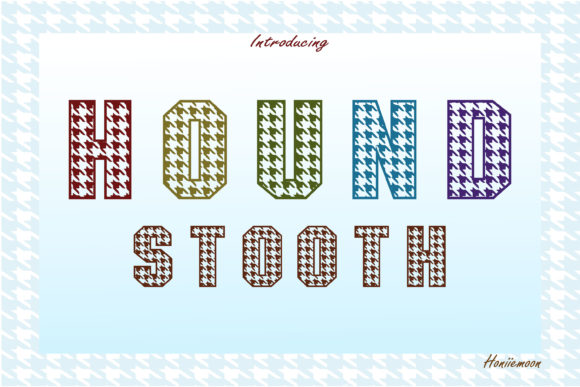
Feast your eyes on Hound Stooth, the decorative font that breathes life into your designs. This font is anything but ordinary, exuding a playful personality that will transform your creative visions into captivating realities. Whether you're a seasoned designer or just starting, Hound Stooth is your gateway to unlocking a world of artistic possibilities.
Step into a realm where creativity knows no bounds, where each letter dances across the screen with a unique charm. Hound Stooth's playful curves and energetic lines create an eye-catching spectacle that demands attention. It's the perfect font for adding a touch of whimsy and wonder to your projects, leaving a lasting impression on anyone who encounters it.
With Hound Stooth, you're not just downloading a font; you're embarking on a creative adventure. Its versatility knows no limits, making it a perfect companion for a wide range of design endeavors. From eye-catching logos and branding to playful invitations and greeting cards, Hound Stooth will add a spark of joy and creativity to any project you undertake.
Imagine the possibilities: Hound Stooth's cheerful nature will bring life to your social media posts, making your content stand out in a crowded digital landscape. It's the secret ingredient that will turn your designs into conversation starters, leaving your audience captivated and eager for more.
Hound Stooth isn't just a font; it's an expression of your individuality. Its unique character will infuse your designs with a personal touch, reflecting your playful spirit and creativity. Embrace the boundless energy of Hound Stooth and let your imagination run wild.